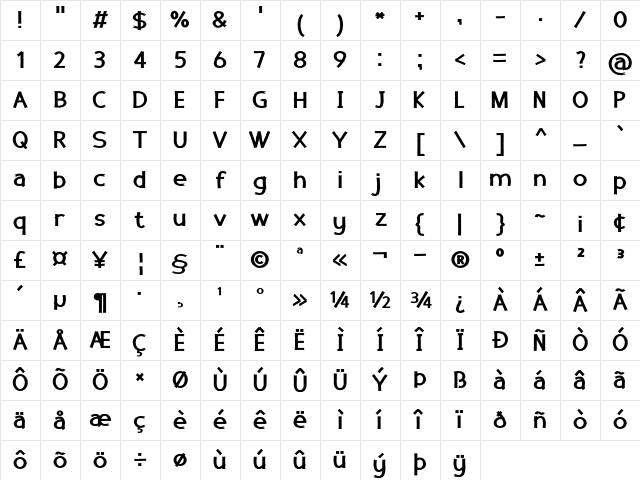
Kamp Killa Bold Free Font
Kamp Killa Bold
Kamp Killa Family
Kamp Killa Bold
Design Context for Kamp Killa
Kamp Killa is a composed and adaptable typeface that performs quietly and consistently across a wide range of design contexts. Its bold stroke weight gives it real presence on the page.